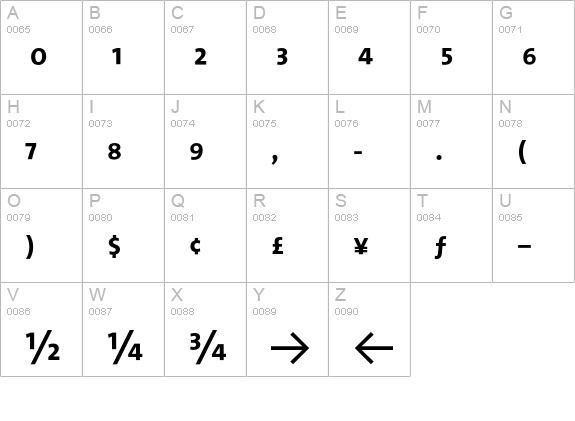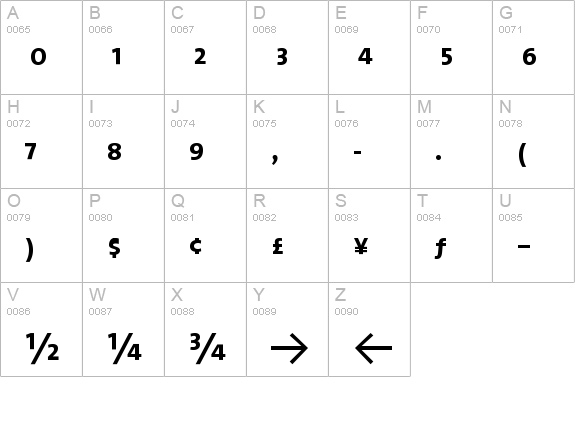
TheMix SemiBold Expert Font Details
TheMix SemiBold Expert is a sub-bold, structured variant in the TheMix typeface family \xE2\x80\x94 well suited to sub-headlines and emphasised passages.
TheMix SemiBold Expert font is a versatile and visually appealing typeface that exudes confidence and modernity. Designed with precision and attention to detail, this font strikes the perfect balance between elegance and professionalism. Its semi-bold weight adds a touch of boldness while maintaining legibility, making it ideal for a wide range of design projects. With its well-crafted letterforms and carefully balanced proportions, TheMix SemiBold Expert font is a true standout in the typography world. It carries a sense of authority and sophistication, making it an excellent choice for headlines, titles, and branding materials. Whether you're designing a sleek logo, a stylish magazine layout, or a refined website, this font will elevate your design to new heights. What sets TheMix SemiBold Expert font apart is its expertly designed characters that are optimized for use in small sizes. Even when used in intricate designs or at lower resolutions, this font retains its clarity and readability, ensuring that your message comes across effortlessly. One of the best aspects of TheMix SemiBold Expert font is that it is freely available to download at FontsMarket.com. This means that you can enhance your creative projects without breaking the bank. It's a font that combines quality and accessibility, making it a go-to choice for designers, artists, and creatives. In conclusion, TheMix SemiBold Expert font is a must-have for anyone looking to make a bold statement with their designs. Its unique blend of style, versatility, and readability makes it a reliable companion for all your typographic needs. Download it for free today at FontsMarket.com and unlock a world of possibilities for your next design project.